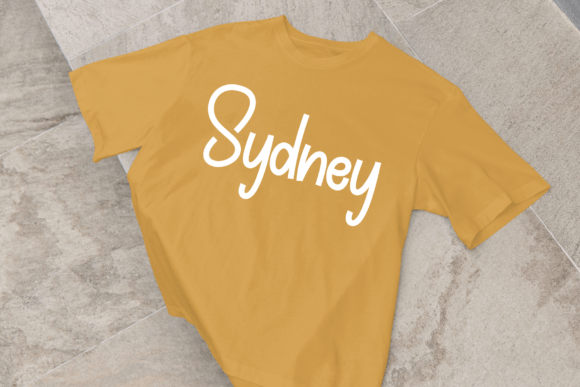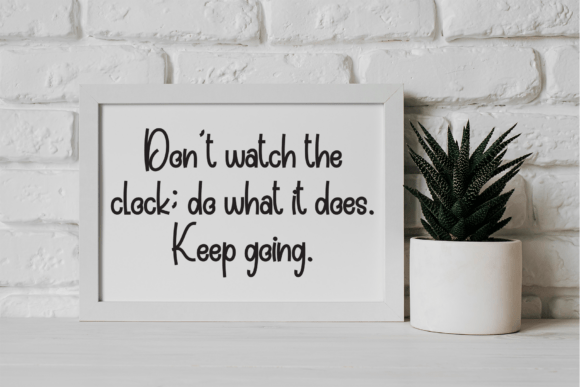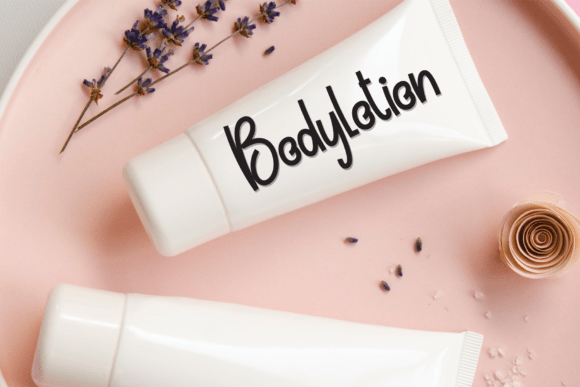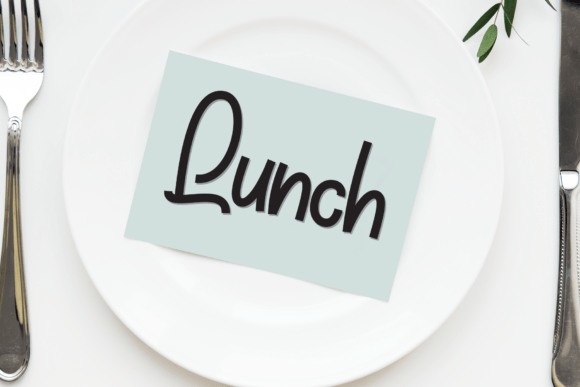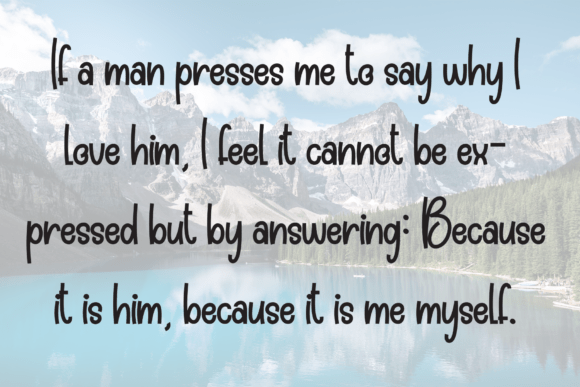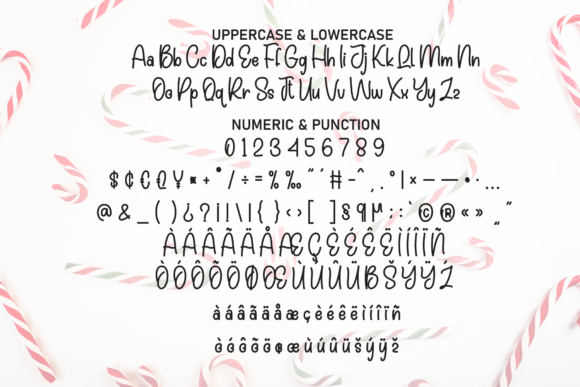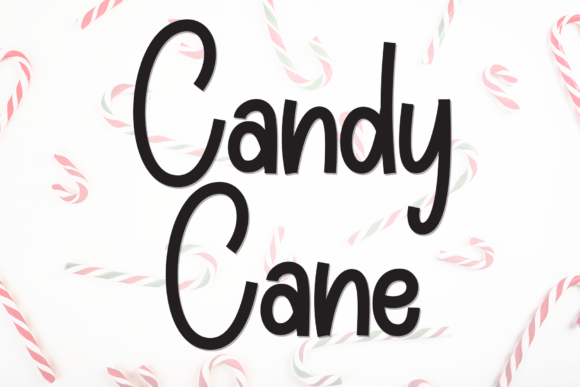
Deck the Halls with Holiday Cheer: Introducing the Candy Cane Font
There’s something magical about the holiday season – the twinkling lights, the cozy atmosphere, and of course, the festive typography. Who can resist the charm of a perfectly designed holiday card or a social media post that exudes cheer? As designers, we know that the right font can make all the difference in setting the tone for a merry and bright holiday season.
Enter the Candy Cane Font, a modern, monolinear display font that embodies the spirit of the season. With its vertically elongated letterforms and consistent stroke weight, this font is a delightful choice for seasonal projects. Its minimalist structure and hand-drawn character proportions give the text a warm, personal touch that remains highly legible, making it a valuable addition to any designer’s toolkit.
Candy Cane Font Key Features
- Font Style: Script, Brush, and Ornate
- Unique Characteristics: Features a distinctive, hand-drawn design with a candy cane-inspired theme, perfect for festive and holiday-themed designs
Candy Cane Font Review
The Candy Cane Font is a fun and festive font that’s perfect for adding a touch of holiday cheer to your designs. ✨ The font’s bold and playful lines immediately grab your attention, making it a great choice for headings and titles. ✨ The font’s symmetry also makes it easy to read, even at small font sizes.
One of the things that really stands out about the Candy Cane Font is its versatility. ✨ You can use it to create a wide range of designs, from elegant holiday cards to fun and playful party invitations. The font’s bold lines and festive feel make it perfect for a variety of applications.
- ⚠️ The font’s bold lines can be overwhelming if used too much, so be sure to balance it with other design elements.
- ⚠️ The font may not be suitable for formal or professional designs, as it’s a bit too playful and festive.
Overall, the Candy Cane Font is a fun and festive font that’s perfect for adding a touch of holiday cheer to your designs. While it may have some limitations, it’s a great choice for a wide range of applications, and its bold lines and playful feel make it a standout choice.
Tips for Getting the Most Out of the Candy Cane Font
Experiment with different font sizes and styles to create a visually appealing design.
Use the Candy Cane font in conjunction with other festive graphics, such as holly or snowflakes, to create a cohesive holiday design.
Consider using the Candy Cane font in a bold or italic style to add emphasis to your text.
The Candy Cane font is commonly used in holiday designs, such as:
Christmas card templates
Gift tags and wrapping paper